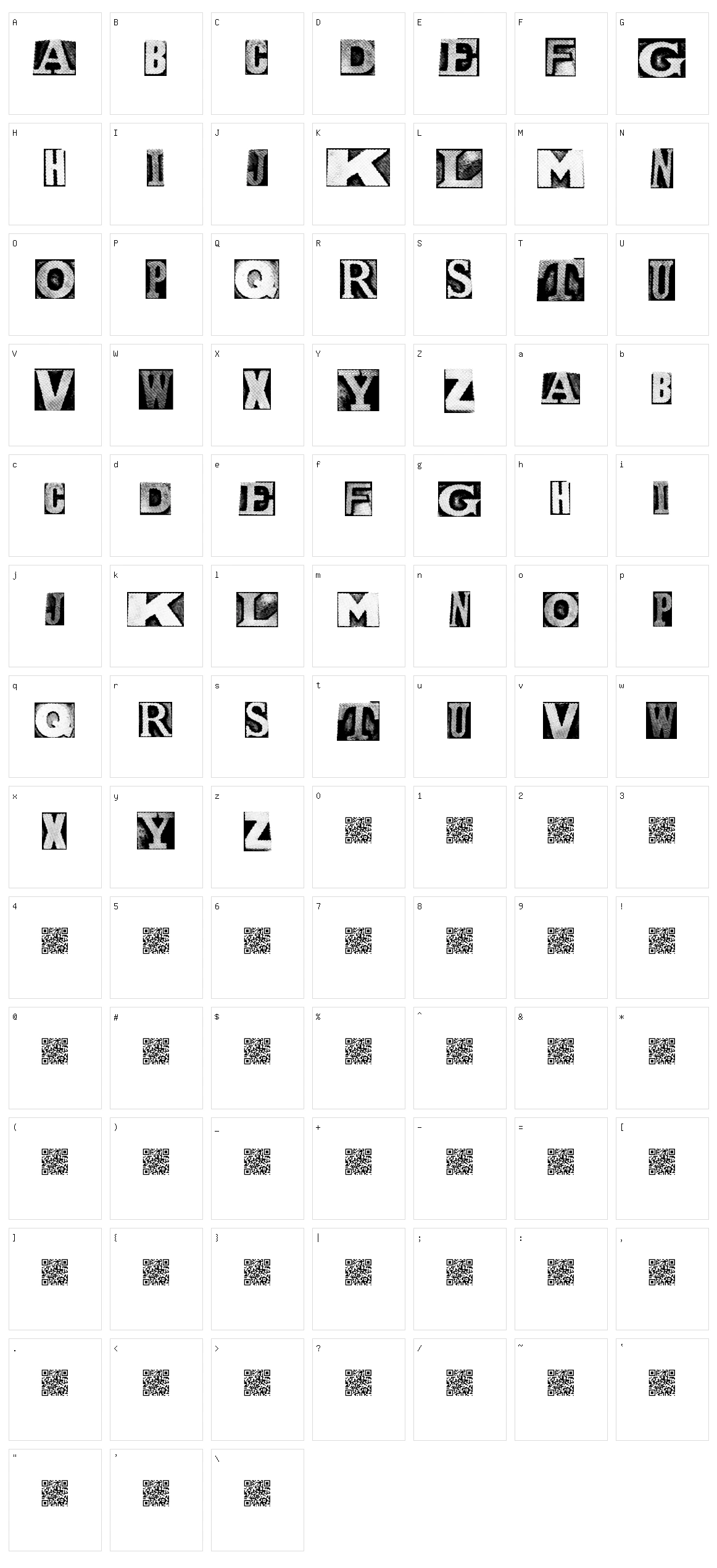
The free font Metal Block Naked is carefully designed by Xerographer Fonts, showcasing a thoughtful balance of creativity and usability and falls under the Distorted font style. When you download the ZIP file, it contains only 878.18 KB of font files, making it lightweight and quick to download. Please review the license details below to understand permitted usage and distribution rights. If license information is not available, we recommend using this font for personal projects only or contacting the author directly for commercial usage permissions.